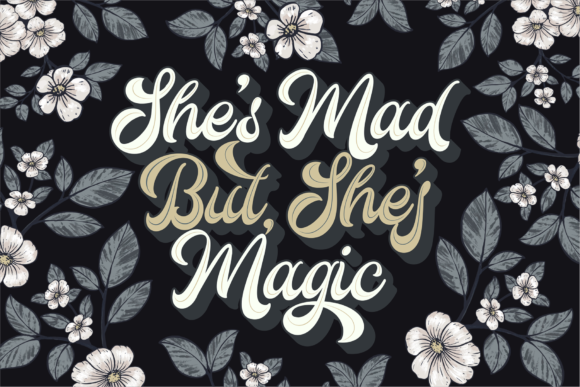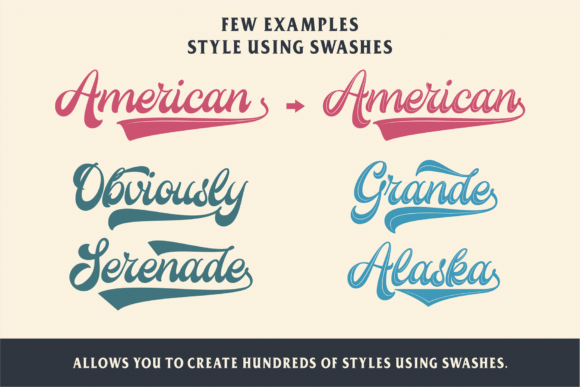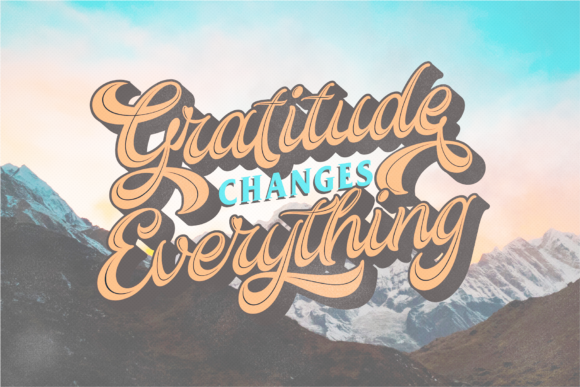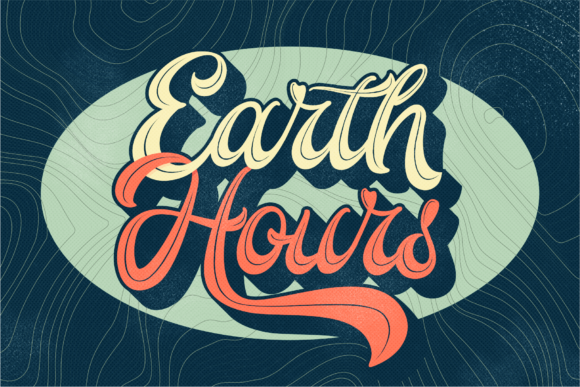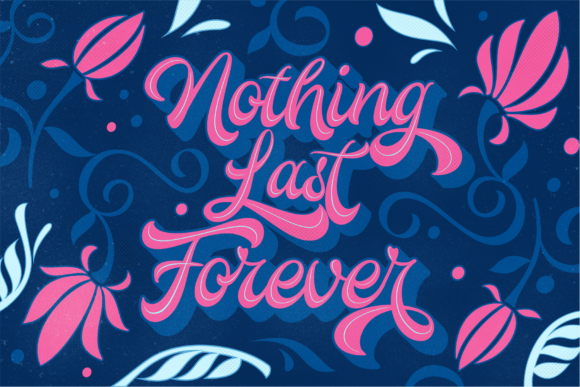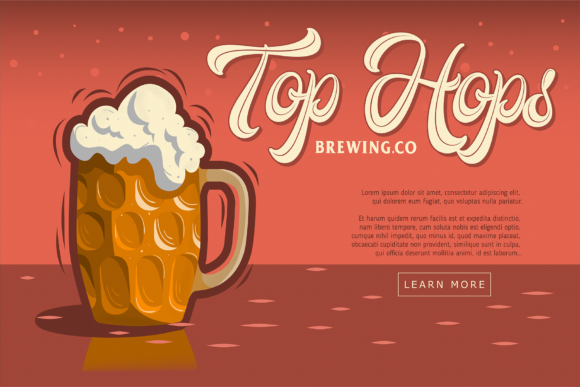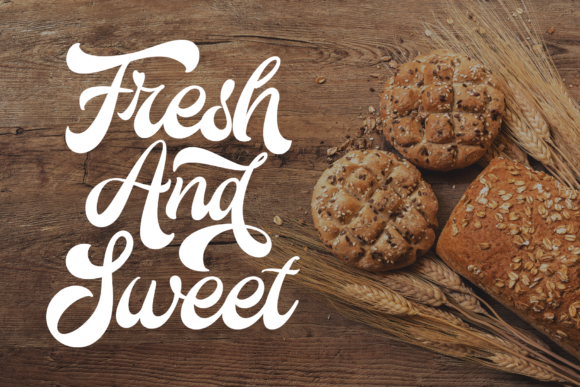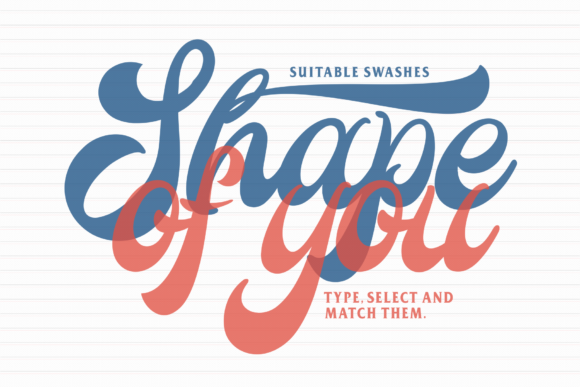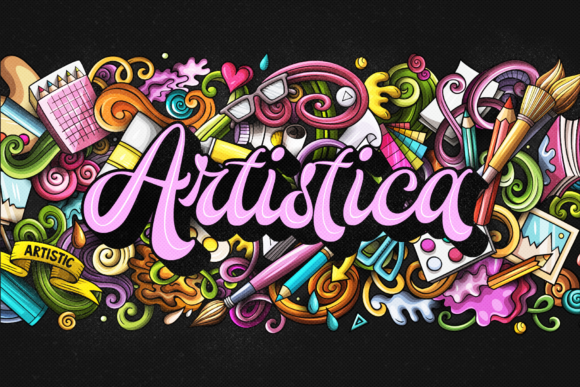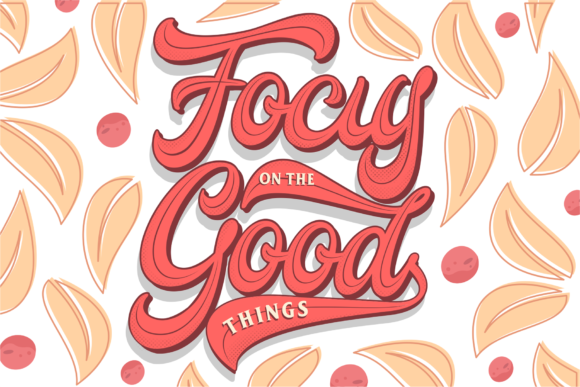
Bon Voyage Duo Font
The Bon Voyage is a fancy handmade font duo. It was inspired by popular retro handlettering in the 70’s added with a touch of pop style. This handmade font is made with several precision layers and lots of glyph’s.
It’s very easy to use without taking your time, and makes it easy for you to make lots of creations easily.
So, Bon Voyage is perfect for being one of your favorite font collections.